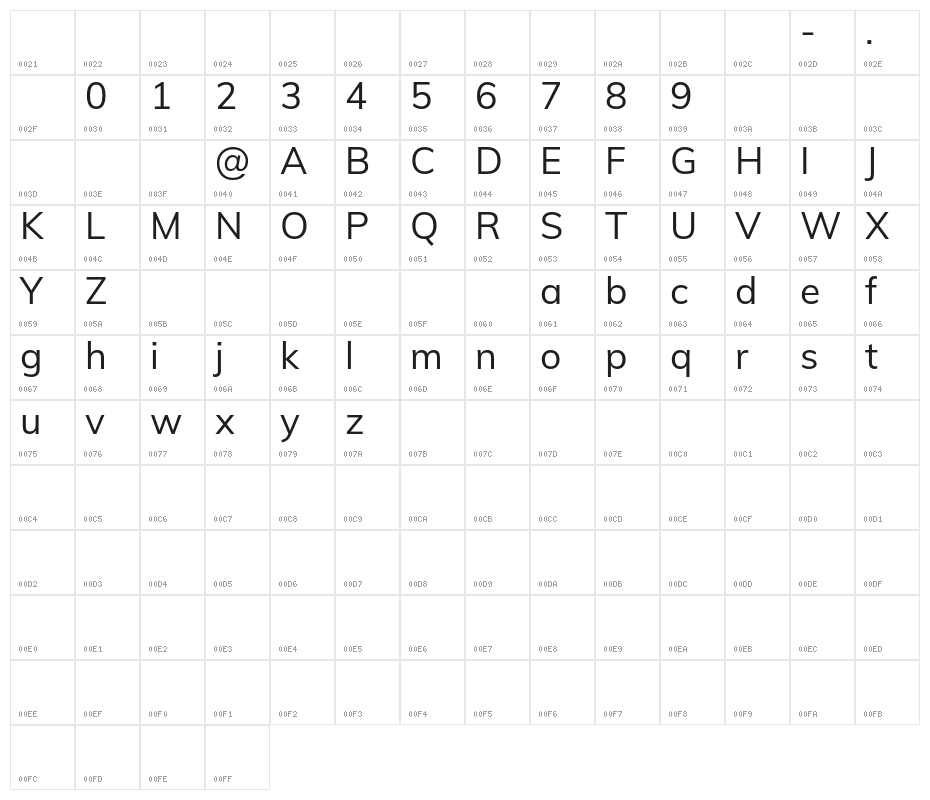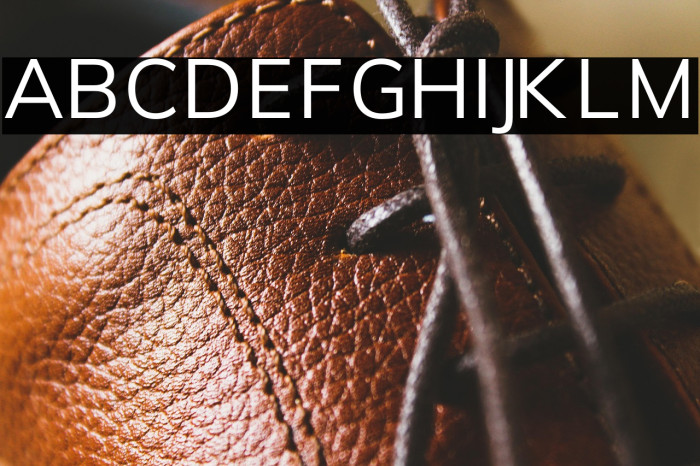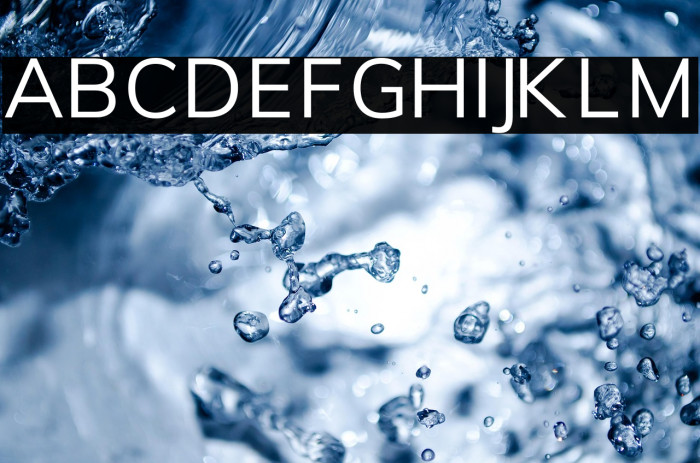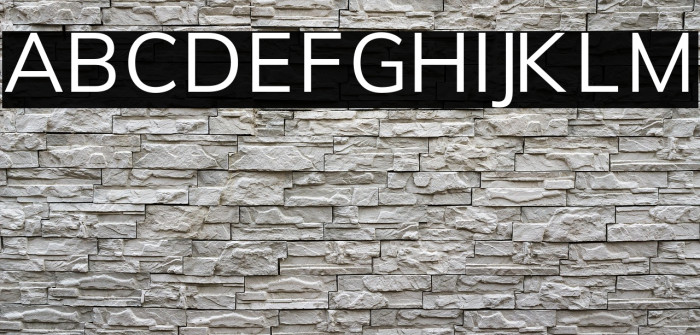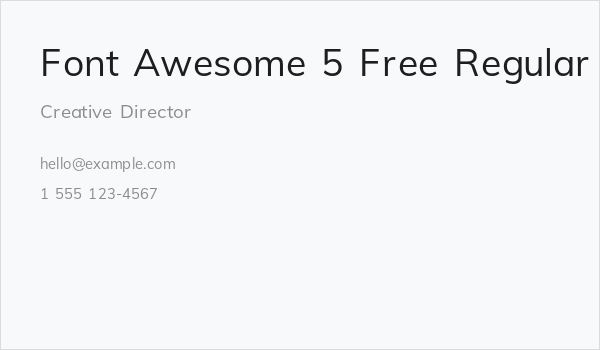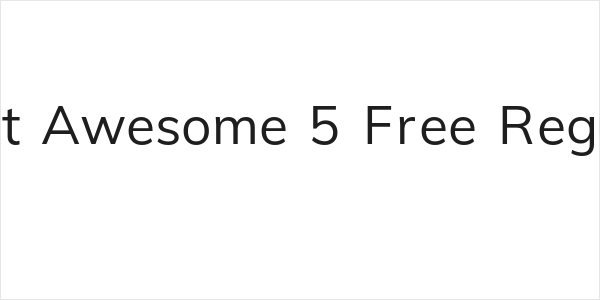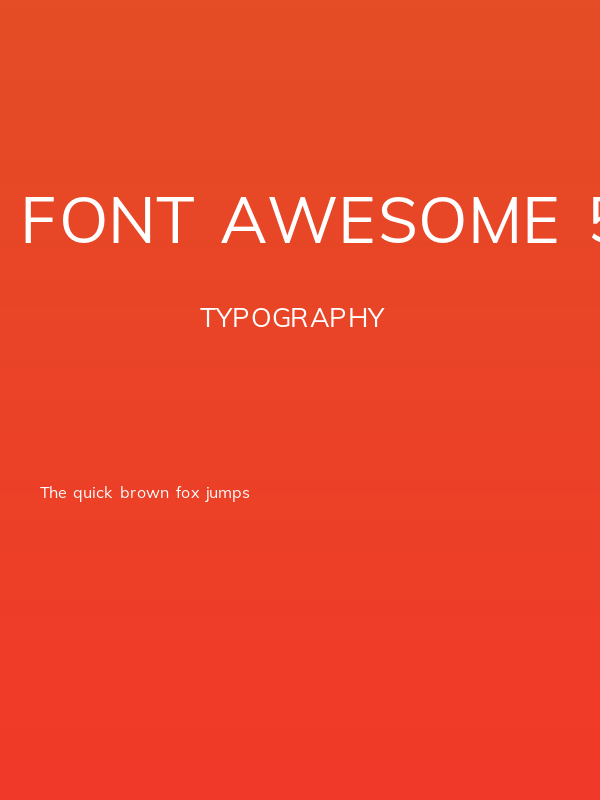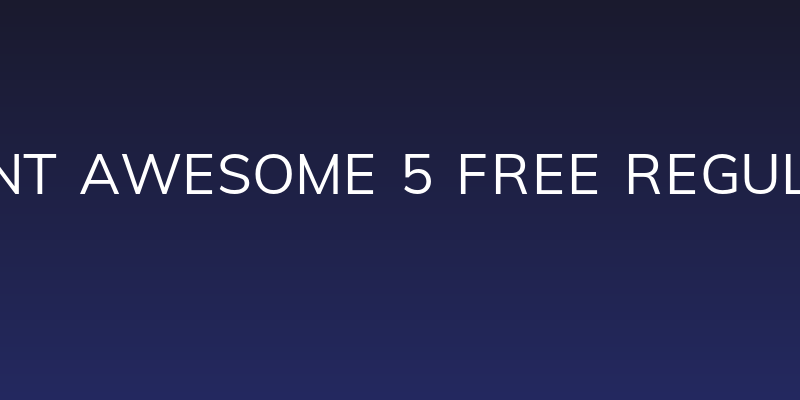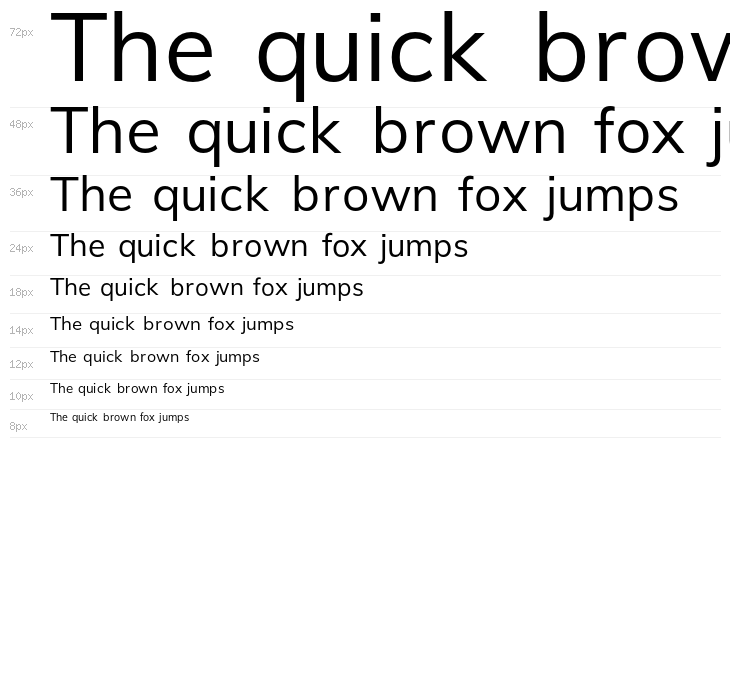
Font Awesome 5 Free Regular Font
Font Awesome 5 Free Regular Description
This font features a clean and modern sans-serif style, characterized by its simplicity and readability. The letterforms are uniform with consistent stroke widths, giving it a balanced and harmonious appearance. The uppercase and lowercase letters are well-proportioned, and the numerals are clear and distinct. The font maintains a professional and neutral tone, making it versatile for various design applications. Its straightforward design ensures legibility across different sizes and mediums.
| Proposed Projects | Ideal for web design, corporate branding, user interfaces, and digital content where clarity and professionalism are key. |